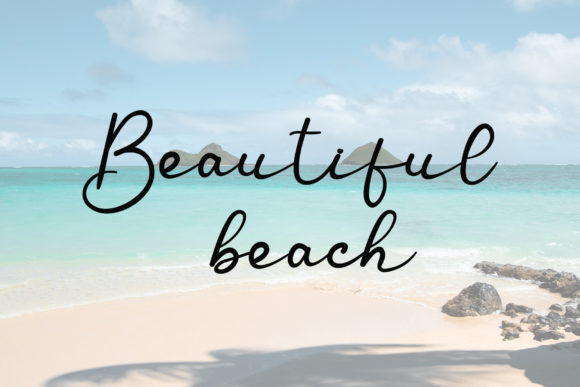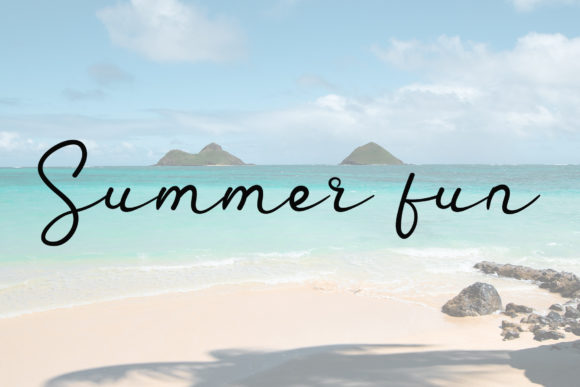
Sunday Font
db-ku.com - Script & Handwritten -- Sunday is a sweet, whimsical, flowing and thin script font. Featuring characters that dance along the baseline, this font will add a luxury spark to any design project that you wish to create!